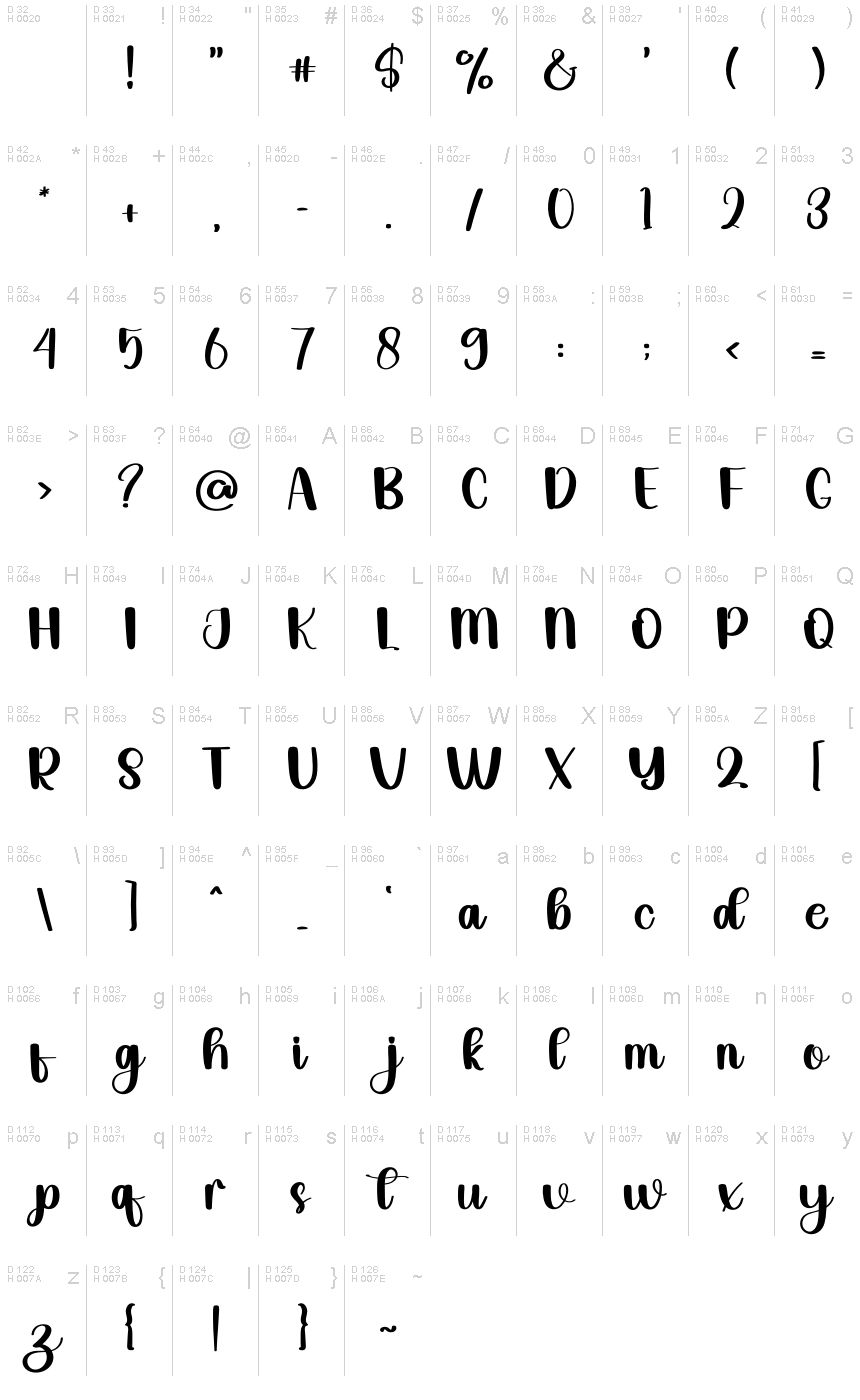
January Is Coming
January Is Coming, designed by Inermedia Studio, presents itself as a handwritten font that exudes charm and personality. Its fluid strokes and elegant curves capture the authenticity of penmanship, while the subtle variance in line thickness adds a dynamic rhythm to each letterform. The casual yet sophisticated style radiates warmth, making it a versatile choice for designs seeking to establish an approachable yet refined aesthetic.
This font's handwritten quality lends itself to applications where a personal touch is desired. From invitations and greeting cards that convey heartfelt messages to branding materials that aim for an intimate connection with the audience, January Is Coming stands out as an embodiment of crafted elegance. It's particularly well-suited for editorial contexts such as book covers or magazine headers where its distinct flair can draw readers' attention without overwhelming the content.
In summary, January Is Coming combines the familiarity of handwriting with the polish of professional design, offering creatives a tool to infuse their projects with both character and sophistication.